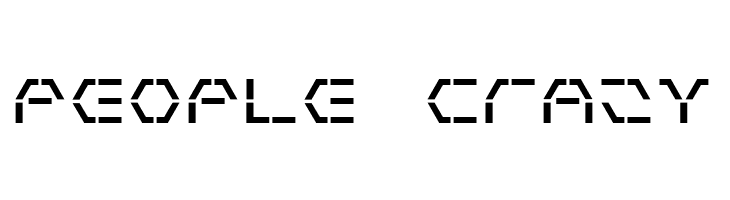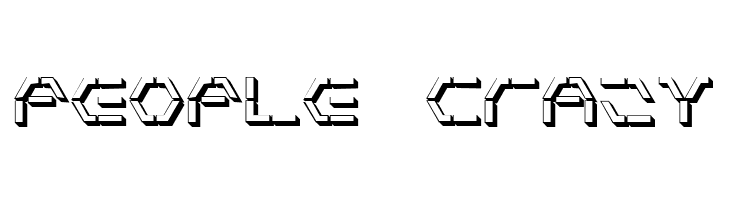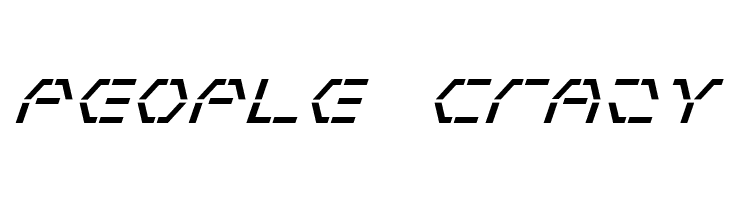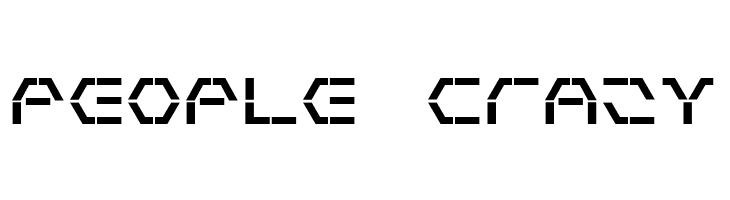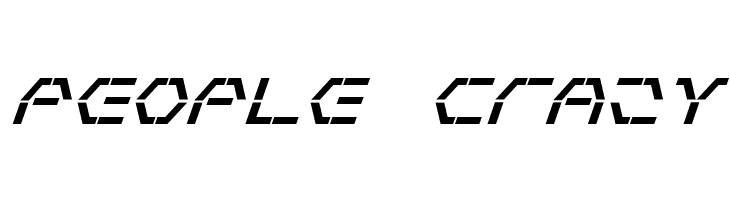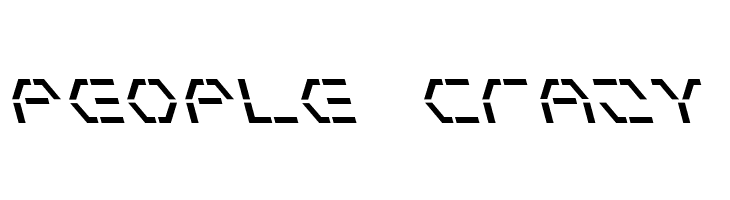
Skydiver On The Wing Font
A futuristic 3D italic font with bold, angular lines and a dynamic slant.
A futuristic, geometric font with segmented, angular letterforms.
A bold, geometric font with a futuristic and digital aesthetic.
A futuristic, 3D geometric font with bold, angular lines.
A futuristic, angular font with a tech-inspired, italic design.
A bold, geometric font with a futuristic and digital design.
A bold, italic, futuristic font with angular, geometric shapes.
A futuristic, geometric font with angular, segmented letterforms.